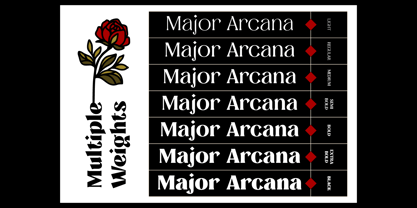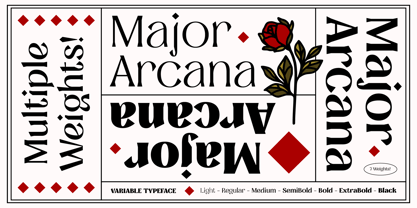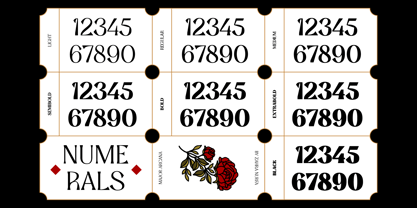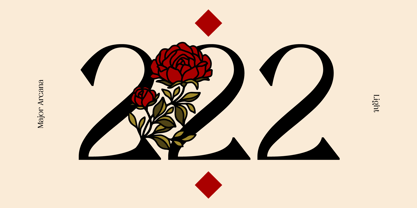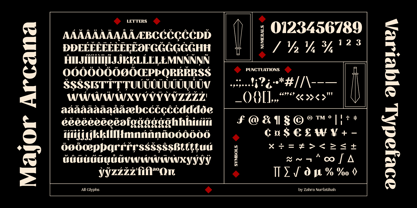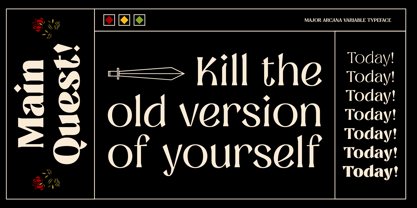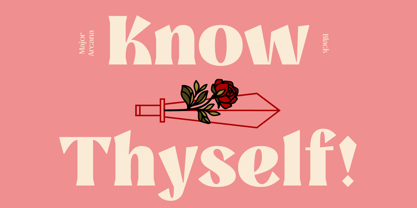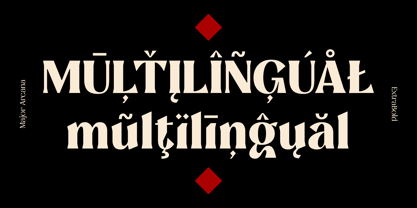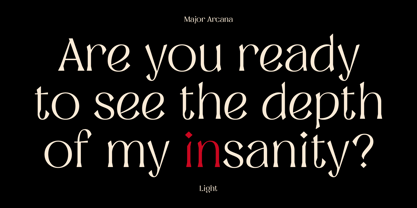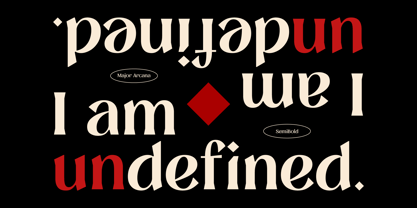
Major Arcana
The Major Arcana Font Family was designed by Zahra Nurfatihah and published by Artflorara. Major Arcana contains 8 styles and family package options. More about this family
Major Arcana is a display serif variable typeface, created to embody presence, clarity, and evolution. It’s designed for display moments where voice matters—whether in editorial, branding, or personal storytelling—offering timeless usage across expressive and intentional design.
Inspired by playing cards and the archetypes in the Tarot, the typeface traces the evolving nature of the self across life’s many cycles. At its core lies a diamond-shaped tittle, symbolizing the G Center in Human Design—the center of identity and self-direction. This subtle yet intentional detail anchors the typeface as more than design: it’s a map of inner alignment and becoming.
Major Arcana is not just designed to be seen, it’s designed to be felt.